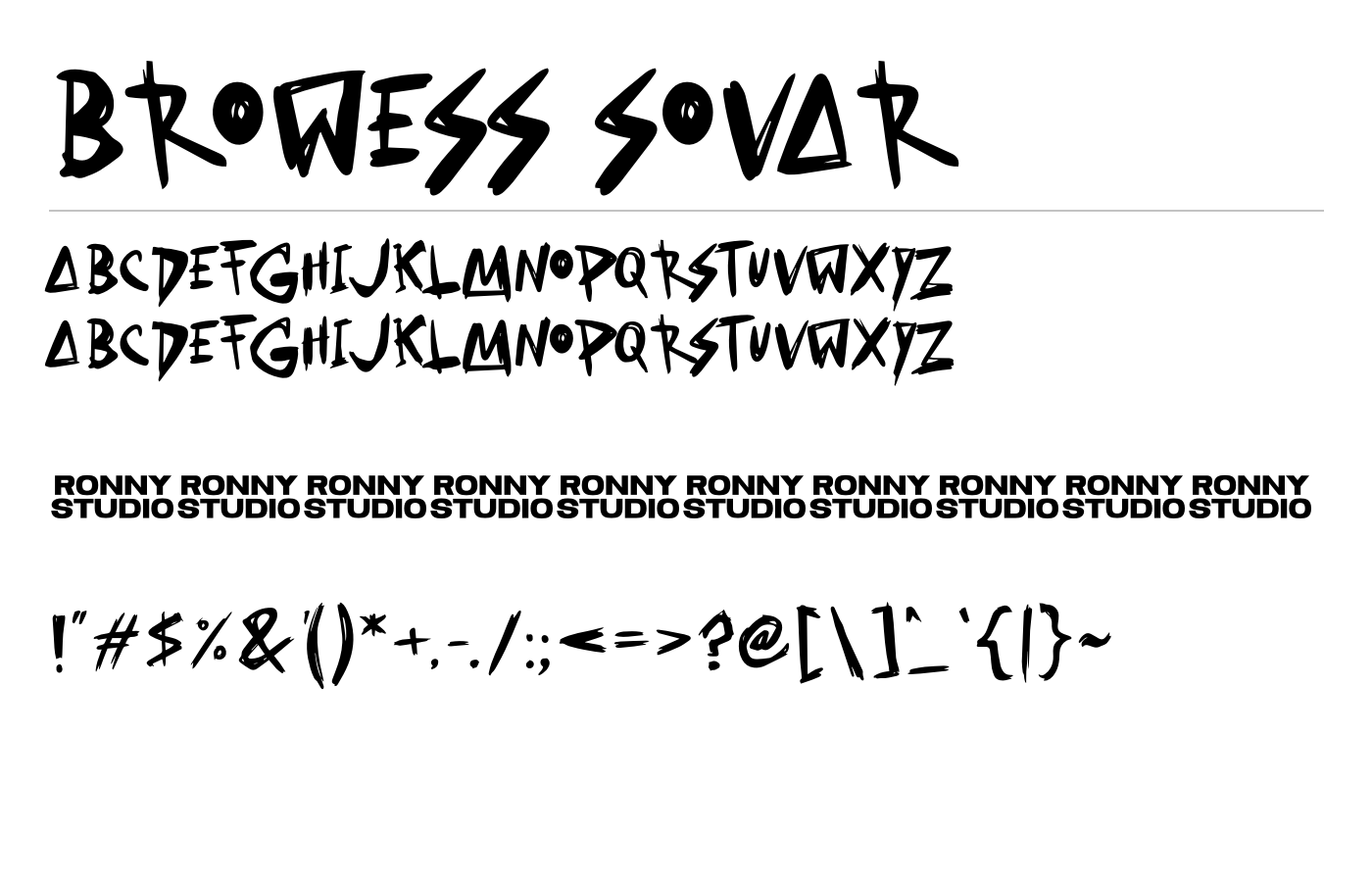
Browess Sovar is an expressive, hand-drawn display font with jagged, irregular strokes that give it an edgy, rebellious character. Its bold, condensed letterforms and rough texture make it ideal for creative projects seeking a raw, urban vibe, such as posters, logos, and branding that want to stand out with an alternative or street-style energy. This font works best in large sizes where its unique details can shine, adding a bold, dynamic personality to any design.
Browess Sovar Font
About Browess Sovar Font
| Font family | Browess Sovar Font |
| Designer | Rony Rizki Jaya |